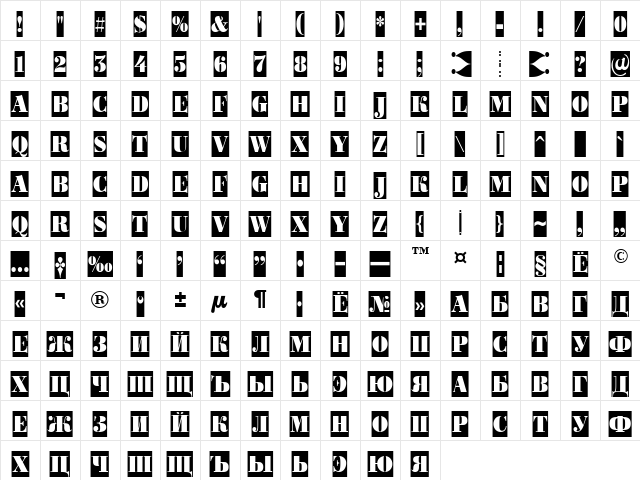
a_BodoniOrtoNrTtlCm Regular
Design Context for a_BodoniOrtoNrTtlCm
a_BodoniOrtoNrTtlCm is a composed and adaptable typeface that performs quietly and consistently across a wide range of design contexts.